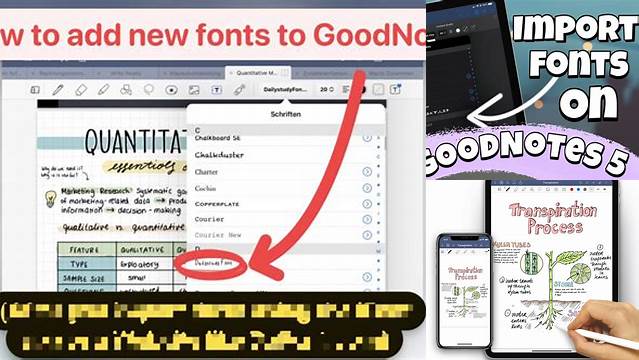
Import Fonts To GoodNotes 5: A Simple Guide
So, you're looking to spice up your GoodNotes 5 experience with some fresh fonts, huh? You've come to the right place! Importing fonts into GoodNotes 5 can really elevate your notes and make them uniquely yours. It’s not as complicated as it might seem, so let's dive right in and get you set up with some beautiful new typefaces.
1. Understanding Font Compatibility with GoodNotes 5
2. Finding and Downloading Fonts for GoodNotes 5
3. Installing Fonts on Your iPad for GoodNotes 5
Now for the crucial step: installing the fonts on your iPad. This is how GoodNotes 5 will be able to "see" and use the new fonts. First, locate the font file you downloaded in the Files app. It’s usually in the "Downloads" folder, as we mentioned earlier. Tap on the font file (it will have a .ttf or .otf extension). This should open a preview of the font. You might see a message saying "Install Font" or something similar. If not, look for a share icon (usually a square with an arrow pointing upwards). Tap the share icon and look for the option to "Install Font." If you don’t see this option directly, scroll through the list of apps until you find "Font Book" or an app with a similar name. Font Book is a built-in app on iPadOS that manages fonts. Once you find the font installation option, tap it, and follow the on-screen instructions to install the font. You may need to grant permission for the font to be installed. After the font is installed, it will be available system-wide, meaning not only in GoodNotes 5 but also in other apps that support custom fonts. This is a super handy feature of iPadOS! If you run into any issues, make sure you have the latest version of iPadOS installed, as older versions may have compatibility problems. Also, restarting your iPad after installing fonts can sometimes help resolve any glitches. With the font successfully installed, you're one step closer to using it in GoodNotes 5.
4. Importing Fonts Directly Through GoodNotes 5
Some people find it easier to import fonts directly through GoodNotes 5. While the method described above (installing system-wide) is generally recommended, GoodNotes 5 does offer a way to import fonts from within the app itself. To do this, open GoodNotes 5 and create or open a notebook. Tap on the text tool and then tap on the font selection menu. Scroll to the bottom of the font list and look for an option like "Import Font" or "Add Font." The exact wording may vary slightly depending on the version of GoodNotes 5 you're using. When you tap on this option, GoodNotes 5 will open the Files app, allowing you to browse for the font file you downloaded. Select the font file, and GoodNotes 5 will import it into the app. The font should now be available in the font selection menu. Keep in mind that fonts imported this way are only available within GoodNotes 5. They won't be available in other apps on your iPad. This method can be useful if you only want to use the font in GoodNotes 5 and don't want to clutter your system font list. However, for most users, installing the font system-wide is the preferred approach. It's more versatile and allows you to use the font in other apps as well. If you’re having trouble finding the "Import Font" option, make sure you have the latest version of GoodNotes 5 installed. Updates often include new features and improvements, so keeping your app up-to-date is always a good idea.
5. Using Your New Fonts in GoodNotes 5
Alright, the moment you've been waiting for! You've installed your fonts, and now it's time to use them in GoodNotes 5. Open a notebook or create a new one. Select the text tool, and then tap on the font selection menu. You should see your newly installed fonts in the list. They're usually listed alphabetically, so scroll through the list until you find the font you want to use. Tap on the font to select it. Now, start typing! You should see your text rendered in the new font. If you don't see the font, try restarting GoodNotes 5 or even your iPad. Sometimes, the app needs a little nudge to recognize the new fonts. Experiment with different font sizes, colors, and styles to see how the font looks in different contexts. Some fonts look great for headings, while others are better suited for body text. Have fun and be creative! Using different fonts can really make your notes more engaging and visually appealing. And remember, you can always change the font later if you decide you don't like it. The beauty of digital note-taking is that everything is easily editable. So go ahead, play around with your new fonts and create some awesome notes!
6. Troubleshooting Common Font Issues in GoodNotes 5
Sometimes, things don't go quite as planned. You might encounter issues when importing or using fonts in GoodNotes 5. Here are some common problems and how to fix them. First, if the font doesn't appear in the font list, make sure it's compatible with iPadOS and in the correct format (.ttf or .otf). Also, double-check that you've installed the font correctly. Go back to the Files app and make sure the font is installed system-wide. If the font looks distorted or doesn't render correctly, it could be a problem with the font file itself. Try downloading the font from a different source or using a different font altogether. If you're still having trouble, try restarting GoodNotes 5 or your iPad. This can often resolve minor glitches. Another common issue is that the font size might appear different than expected. This can happen because different fonts have different metrics. Experiment with different font sizes until you find one that looks right. Finally, if you're using a lot of custom fonts, it can sometimes slow down GoodNotes 5. Try removing any fonts you don't use regularly to improve performance. Troubleshooting font issues can be frustrating, but with a little patience, you can usually find a solution. And remember, there are plenty of online resources and forums where you can get help from other GoodNotes 5 users.
7. Managing Your Font Library for Optimal GoodNotes 5 Performance
As you start collecting more and more fonts, it's important to manage your font library to keep GoodNotes 5 running smoothly. Having too many fonts installed can slow down the app and make it harder to find the fonts you need. One way to manage your font library is to use the Font Book app on your iPad. This app allows you to view all the fonts installed on your system, disable fonts you don't use regularly, and even remove fonts altogether. To disable a font, simply open the Font Book app, select the font you want to disable, and tap the "Disable" button. The font will no longer be available in GoodNotes 5 or other apps until you re-enable it. To remove a font, follow the same steps, but tap the "Remove" button instead. Be careful when removing fonts, as you won't be able to use them until you re-install them. Another way to manage your font library is to organize your font files in the Files app. Create folders for different font categories (e.g., "Serif," "Sans-Serif," "Script") to make it easier to find the fonts you need. You can also use a font management app to help you organize and manage your fonts. These apps often offer advanced features like font previews, font comparisons, and font activation/deactivation. By managing your font library effectively, you can keep GoodNotes 5 running smoothly and make it easier to find the perfect font for your notes.
8. Exploring Different Font Styles to Enhance Your Notes in GoodNotes 5
The world of fonts is vast and varied, with countless styles to choose from. Exploring different font styles can enhance your notes and make them more visually appealing. Serif fonts, like Times New Roman and Garamond, have small decorative strokes at the end of each letter. They're often used for body text because they're easy to read. Sans-serif fonts, like Arial and Helvetica, don't have these strokes. They're often used for headings and titles because they look clean and modern. Script fonts, like Brush Script and Pacifico, resemble handwriting. They're often used for decorative purposes or to add a personal touch. Display fonts are designed to be eye-catching and attention-grabbing. They're often used for logos, posters, and other visual materials. When choosing fonts for your notes, consider the overall tone and style you want to convey. If you're writing formal notes, a serif font might be a good choice. If you're writing informal notes, a sans-serif font might be more appropriate. Experiment with different font styles to see what works best for you. You might be surprised at how much of a difference a font can make. And don't be afraid to mix and match fonts to create a unique and visually appealing look. Just be sure to use fonts sparingly and consistently to avoid making your notes look cluttered or disorganized. With a little experimentation, you can find the perfect fonts to enhance your notes and make them more engaging.
9. Creating Custom Font Pairings for Visually Appealing Notes in GoodNotes 5
Font pairings can significantly elevate the visual appeal of your notes in GoodNotes 5. The right combination of fonts can create a harmonious and professional look. A common approach is to pair a serif font for body text with a sans-serif font for headings. This creates a clear visual hierarchy and makes your notes easier to read. For example, you could pair Garamond (serif) with Helvetica (sans-serif). Another approach is to pair a bold font with a lighter font. This can create contrast and make your notes more visually interesting. For example, you could pair Montserrat Bold with Montserrat Light. When creating font pairings, consider the overall tone and style you want to convey. If you're writing formal notes, you might want to choose a classic and elegant font pairing. If you're writing informal notes, you might want to choose a more modern and playful font pairing. It's also important to consider the readability of your font pairings. Make sure the fonts you choose are easy to read, even at small sizes. Experiment with different font pairings to see what works best for you. There are many online resources that can help you find inspiration for font pairings. Websites like FontPair and Canva's Font Combinations tool offer suggestions for fonts that work well together. And don't be afraid to break the rules and create your own unique font pairings. The most important thing is to choose fonts that you like and that make your notes look great.
10. Utilizing Font Management Apps to Streamline Your GoodNotes 5 Workflow
Font management apps can be a game-changer when it comes to streamlining your GoodNotes 5 workflow. These apps make it easier to organize, preview, and activate/deactivate fonts. One popular font management app is iFont. iFont allows you to install fonts directly from the app, preview fonts before installing them, and manage your font library. It also offers features like font backups and font sharing. Another popular font management app is Fontcase. Fontcase allows you to organize your fonts into collections, preview fonts in different sizes and styles, and activate/deactivate fonts with a single tap. It also offers features like font tagging and font filtering. Using a font management app can save you time and effort when working with fonts in GoodNotes 5. Instead of having to manually install and uninstall fonts, you can simply use the app to manage your font library. This can be especially useful if you have a large collection of fonts or if you frequently switch between different font styles. When choosing a font management app, consider your specific needs and budget. Some apps are free, while others require a paid subscription. Also, be sure to read reviews and compare features before making a decision. With the right font management app, you can take your GoodNotes 5 workflow to the next level.
11. Backing Up Your Favorite Fonts for Safekeeping
12. Understanding Font Licensing and Usage Rights
13. Converting Fonts to Compatible Formats for GoodNotes 5
14. Exploring Free Font Resources for GoodNotes 5 Users
15. Purchasing Premium Fonts for a Professional Touch
16. Creating Handwritten Fonts for a Personal Touch
17. Sharing Your Custom Font Creations with Others
18. Using Fonts to Improve Note-Taking Efficiency
19. Optimizing Font Size and Spacing for Readability
20. Utilizing Color with Fonts for Visual Emphasis
21. Exploring Calligraphy Fonts for Artistic Notes
22. Integrating Dingbat Fonts for Visual Symbols
23. Designing Custom Templates with Unique Fonts
24. Using Fonts to Create a Consistent Visual Style
25. Exploring Font Psychology and Its Impact on Perception
26. Utilizing Fonts for Different Subjects and Purposes
27. Exploring Font Trends and Staying Up-to-Date
28. Customizing Font Styles with Bold, Italics, and Underlines
29. Using Fonts to Create a Visual Hierarchy in Notes
30. Maximizing the Impact of Fonts in Digital Note-Taking